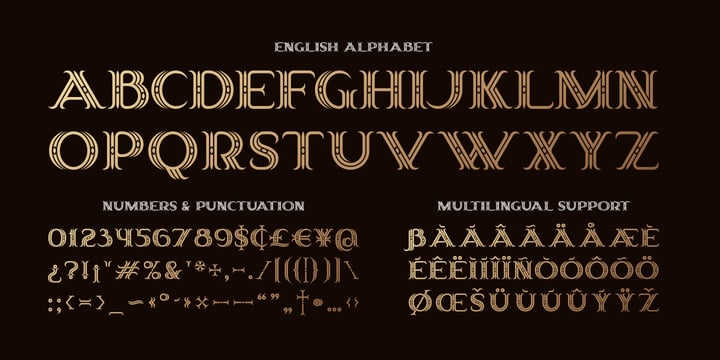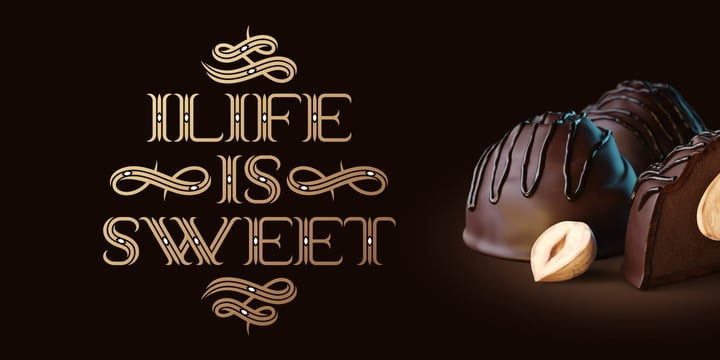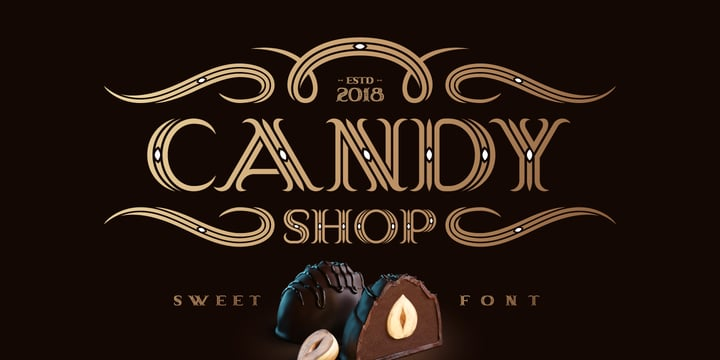
Candy Shop Font
Candy Shop FontCandy Shop is a vintage decorative font. It has a classic elegant look, perfect for food packaging and label design. Additional curly swashes can help you to create a unique lettering compositions. Five additional swashes can be found in “Glyphs” panel.